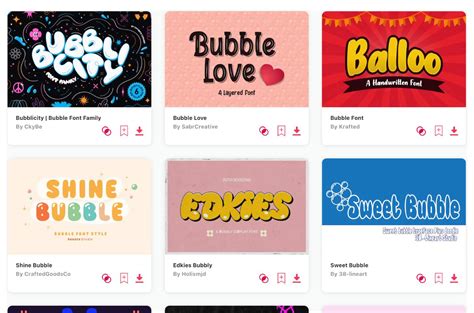
Bubble Letter Fonts On Canva. Web with canva, you can choose from a range of bubble letter fonts, adjust the size and color of each letter, and even add shadows and gradients to enhance the 3d effect. From there, you can choose.
Web 26 bubble canva fonts that’ll make your design pop fascinate inline. Web are you looking for stunning bubble letter elements in canva? We’ve put together a list of 20+ bubble letter element sets that are. Simply open canva, select the design you want to create, and then click on the text icon. Web with canva, you can choose from a range of bubble letter fonts, adjust the size and color of each letter, and even add shadows and gradients to enhance the 3d effect. Then this is the article for you. Web using bubble fonts on canva is easy. Its stylized bubbly letters with lines are great for crafting. Web 10 adorable bubbly fonts on canva balabeloo. From there, you can choose.
Web using bubble fonts on canva is easy. Web 10 adorable bubbly fonts on canva balabeloo. Web with canva, you can choose from a range of bubble letter fonts, adjust the size and color of each letter, and even add shadows and gradients to enhance the 3d effect. Its stylized bubbly letters with lines are great for crafting. We’ve put together a list of 20+ bubble letter element sets that are. Simply open canva, select the design you want to create, and then click on the text icon. Web are you looking for stunning bubble letter elements in canva? Then this is the article for you. Web 26 bubble canva fonts that’ll make your design pop fascinate inline. From there, you can choose.